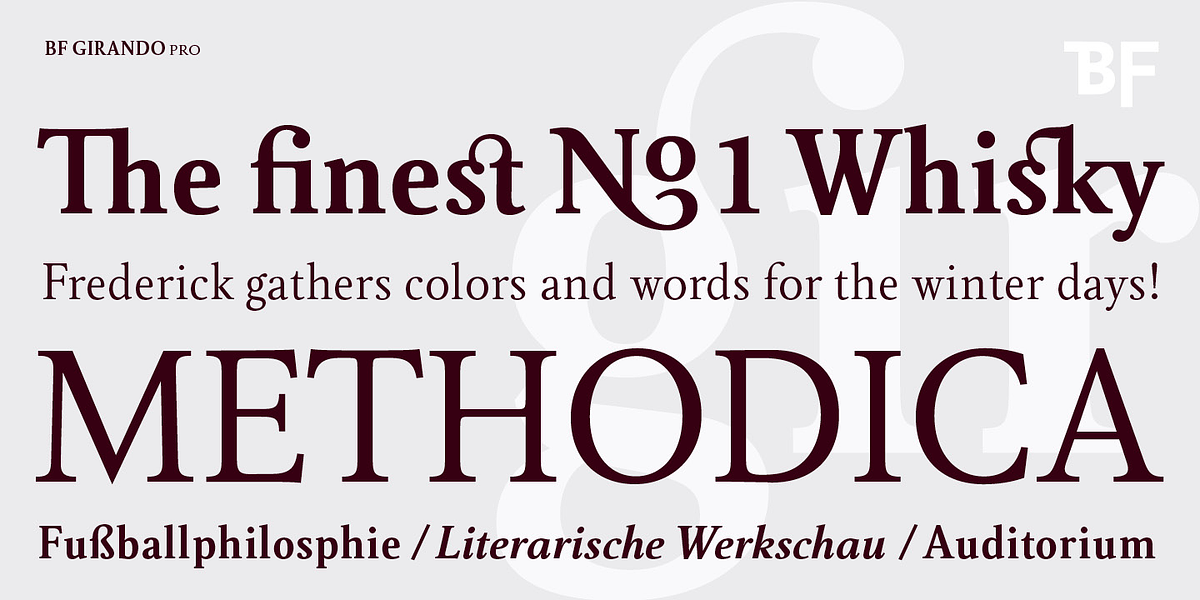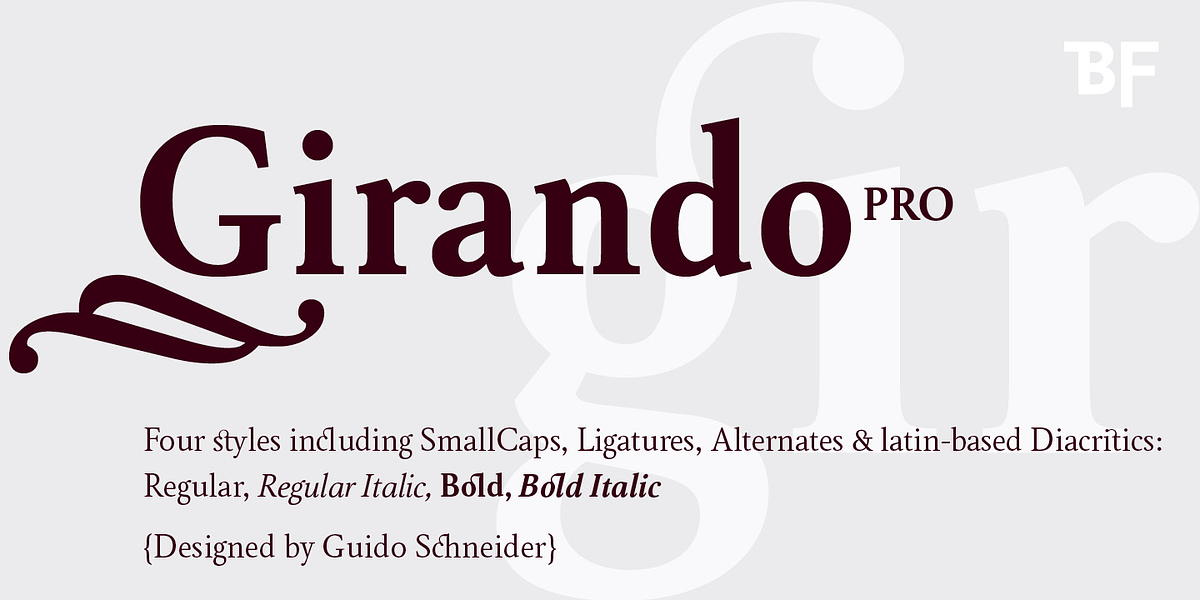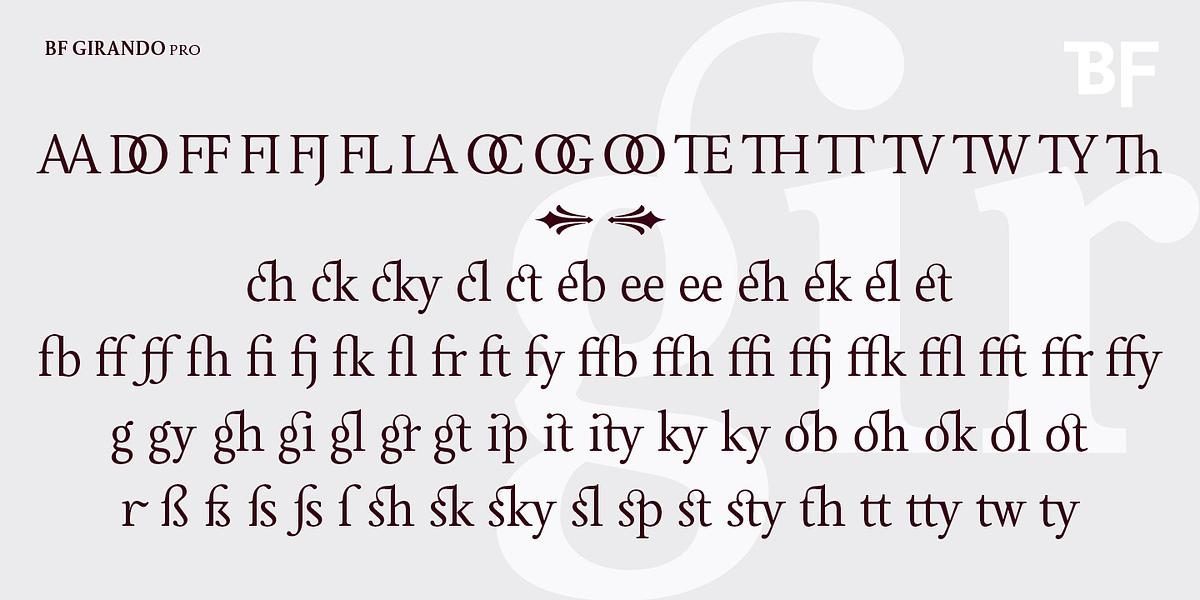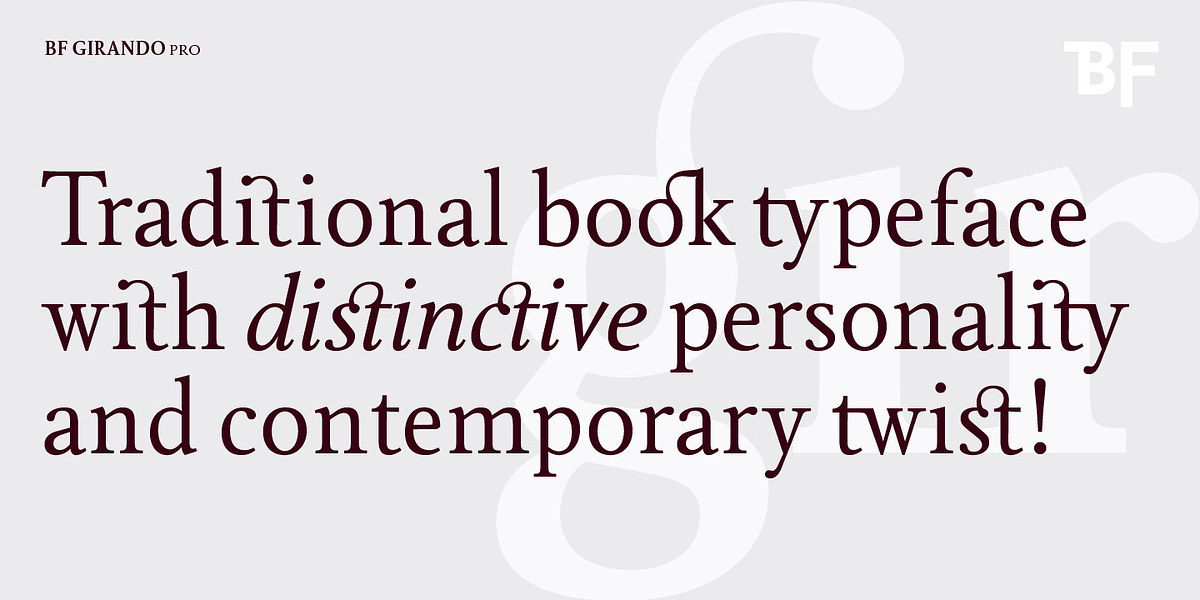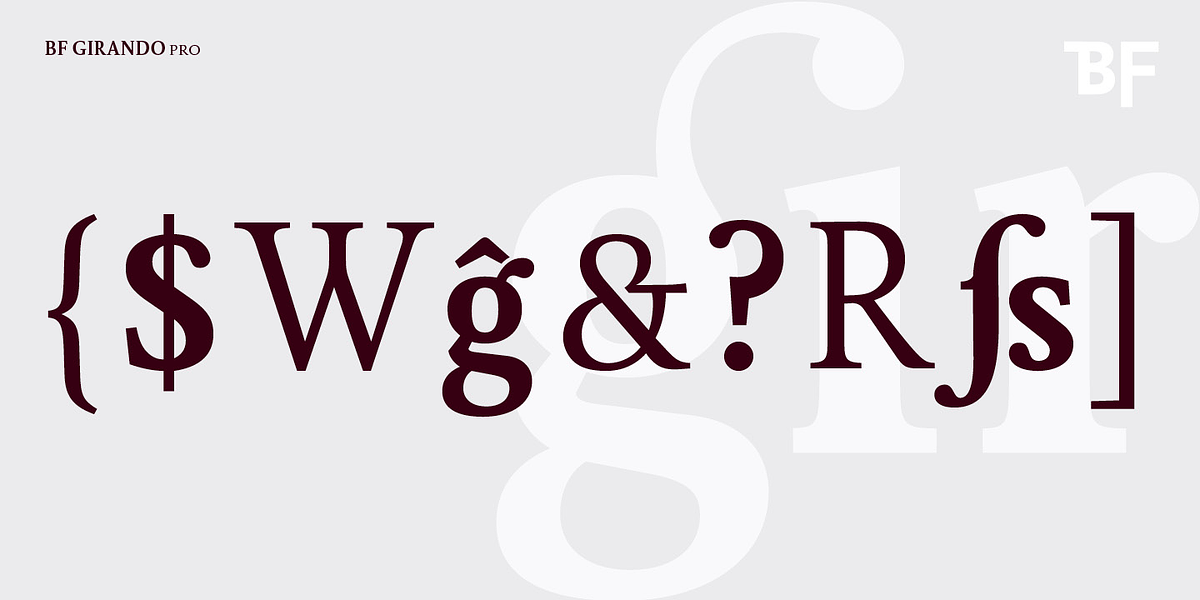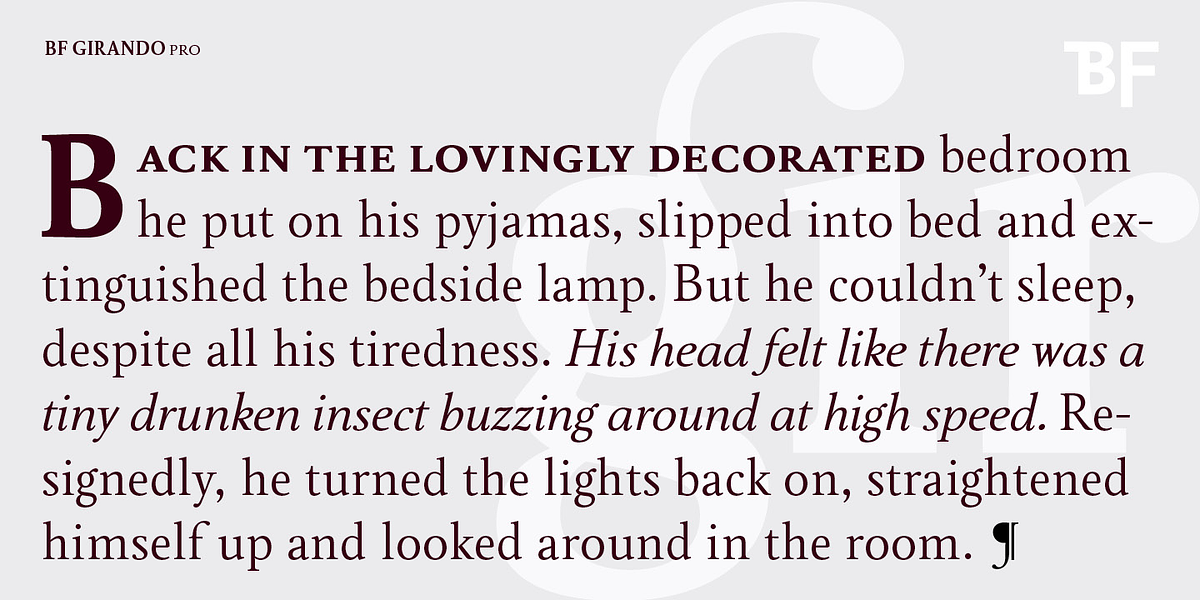
BF Girando Pro
Girando Pro is a serif typeface inspired by the work of Claude Garamond. It features an elegant and traditional design with fine details and harmonic weights, making it suitable for both body text and headlines. The family includes true italics, small caps, old style and lining figures, as well as decorative ligatures.